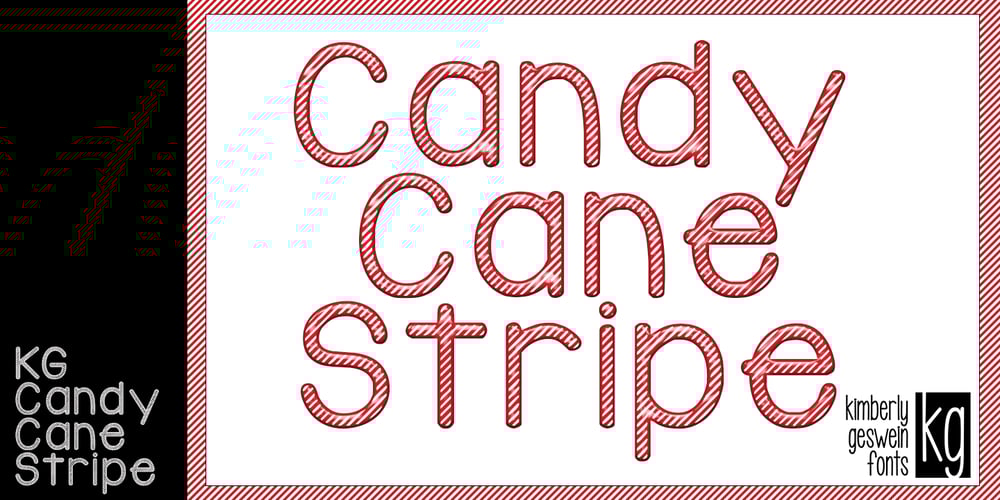
KG Candy Cane Stripe Font Family was designed by Kimberly Geswein and published by Kimberly Geswein. KG Candy Cane Stripe contains 1 styles and family package options. A happy candy cane striped font. Don’t get stuck in a holiday only mode with this one- it is versatile enough for many uses.